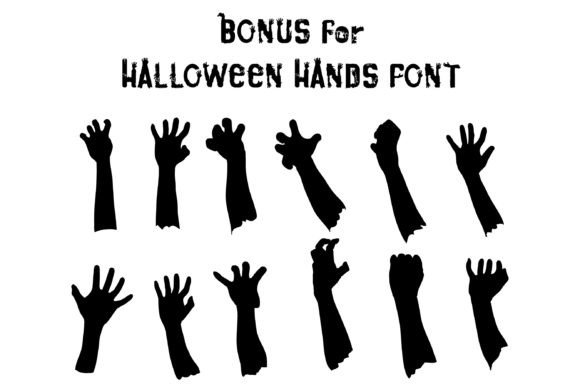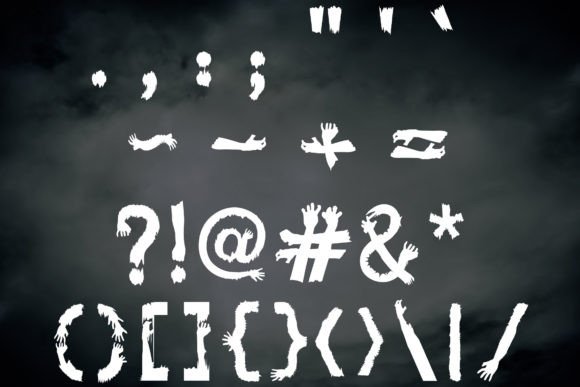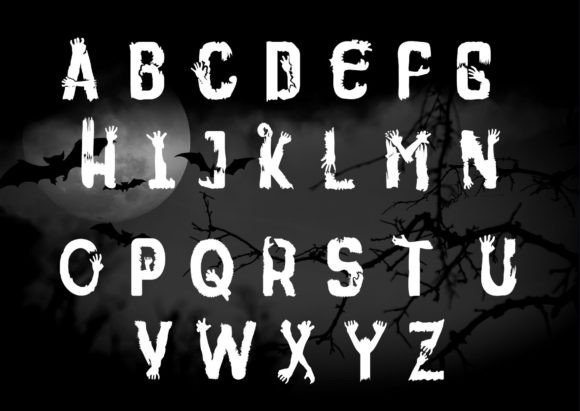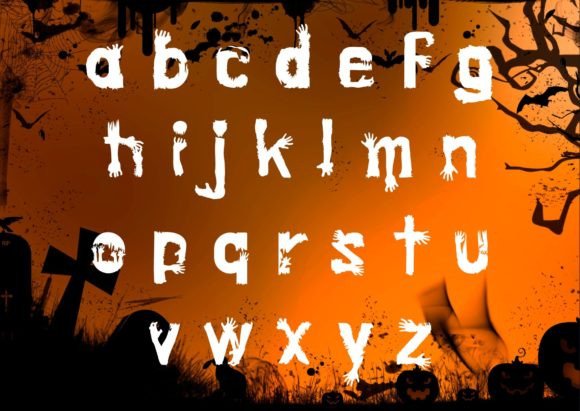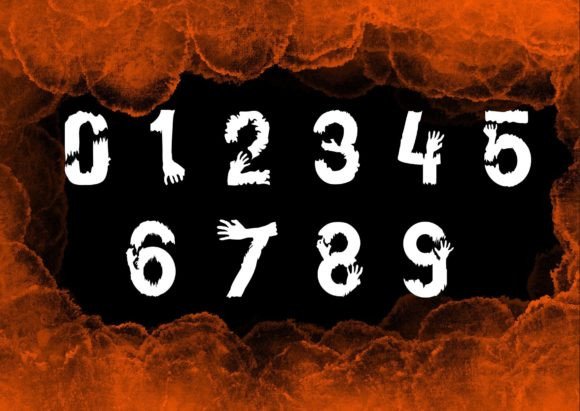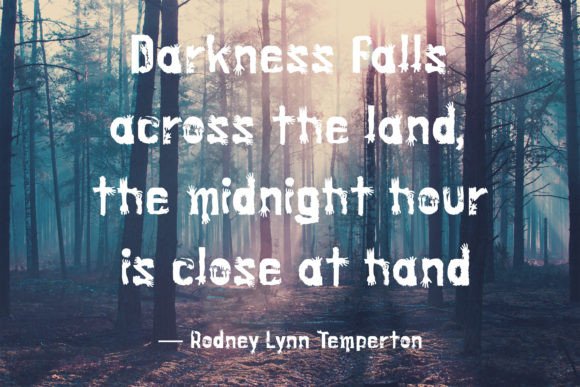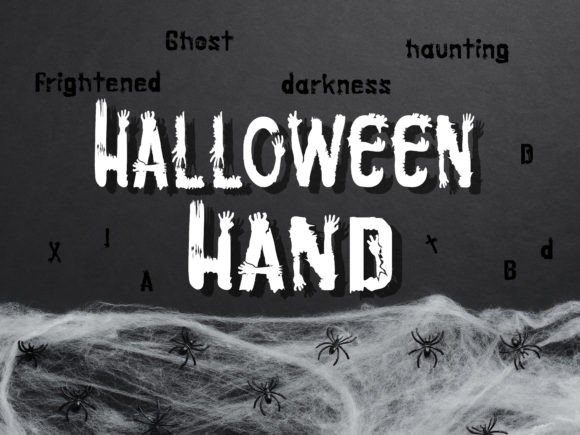
Unleash the Spookiness: Introducing Halloween Hands Font
As the spookiest time of the year approaches, designers and crafters are on the lookout for the perfect font to add a touch of eeriness to their Halloween-related projects. Look no further than the Halloween Hands Font, a creepy and scary display font that’s sure to send shivers down the spines of your audience. In this article, we’ll dive into the world of Halloween Hands Font, exploring its features, uses, and benefits for designers and crafters.
What is Halloween Hands Font?
Halloween Hands Font is a unique and eye-catching display font designed specifically for Halloween-themed designs. This font is characterized by its spooky and whimsical style, making it perfect for creating eye-catching titles, headings, and graphics for Halloween-related events, invitations, and projects.
Key Features of Halloween Hands Font
- Creepy and Scary Design: Halloween Hands Font boasts a creepy and scary design that’s sure to grab attention. Its unique and intricate details make it stand out from other fonts.
- Spooky and Whimsical Style: This font combines spookiness with a touch of whimsy, making it perfect for Halloween-themed designs that require a balance of eeriness and playfulness.
- Display Font: Halloween Hands Font is a display font, designed to make a statement. It’s perfect for titles, headings, and short texts.
Uses of Halloween Hands Font
Halloween Hands Font is a versatile font that can be used in a variety of design projects, including:
- Halloween Invitations: Create spooky and eye-catching invitations for Halloween parties, events, and gatherings.
- Halloween-themed Graphics: Design Halloween-themed graphics, such as posters, flyers, and social media graphics.
- T-Shirts and Merchandise: Use Halloween Hands Font to create spooky and stylish t-shirts, hoodies, and other merchandise.
- Web Design: Add a touch of Halloween spirit to your website with Halloween Hands Font. Use it for headings, titles, and other design elements.
Benefits of Using Halloween Hands Font
So, why should designers and crafters choose Halloween Hands Font for their projects? Here are some benefits:
- Unique and Eye-Catching: Halloween Hands Font is a unique and eye-catching font that will make your designs stand out from the crowd.
- Time-Saving: With Halloween Hands Font, you can create professional-looking designs in no time. Its easy-to-use design and compatibility with most design software make it a time-saving solution.
- Versatile: This font is versatile and can be used in a variety of design projects, from invitations to web design.
- Halloween-themed: Halloween Hands Font is specifically designed for Halloween-themed designs, making it a perfect fit for designers and crafters who want to create spooky and festive designs.
Tips for Using Halloween Hands Font
To get the most out of Halloween Hands Font, here are some tips:
- Use it Sparingly: Halloween Hands Font is a bold and eye-catching font. Use it sparingly to avoid overwhelming your design.
- Pair it with Other Fonts: Pair Halloween Hands Font with other fonts to create a unique and visually appealing design.
- Experiment with Colors: Experiment with different colors to find the perfect combination that matches your design.
Halloween Hands Font is a creepy and scary display font that’s perfect for Halloween-themed designs. Its unique and eye-catching design, spooky and whimsical style, and ease of use make it a must-have font for designers and crafters. Whether you’re designing invitations, graphics, or merchandise, Halloween Hands Font is sure to add a touch of spookiness and festivity to your projects. So, download Halloween Hands Font today and unleash the spookiness in your designs!